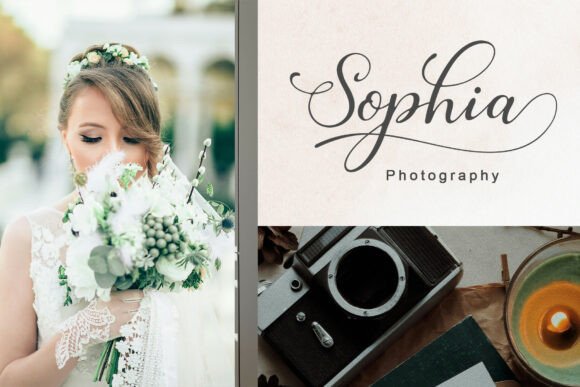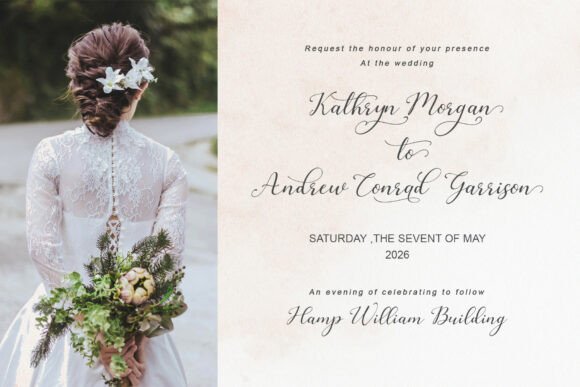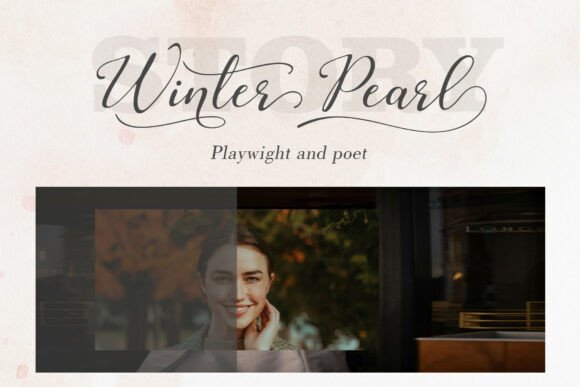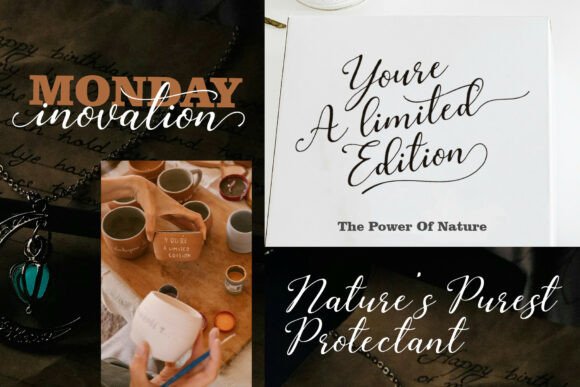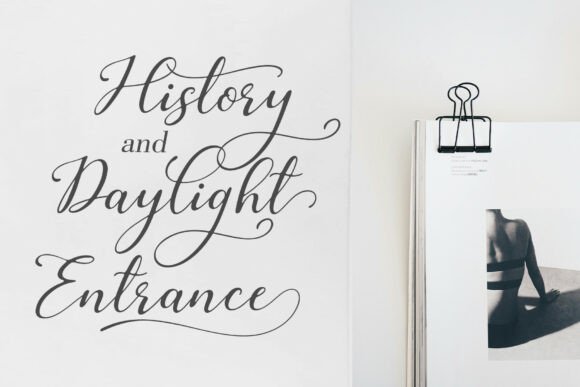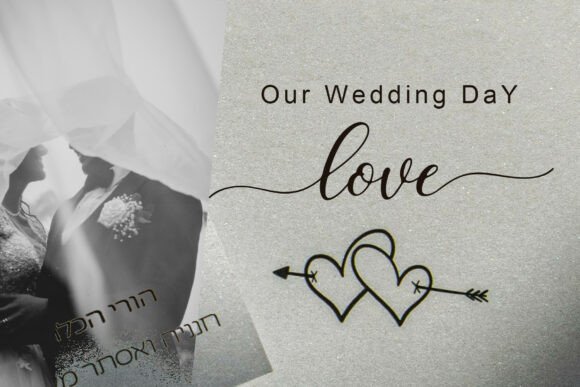
Discover the Elegance of Bodigat Font: Elevate Your Design Work
Have you ever been in the middle of a design project, pouring your heart and soul into it, only to hit a creative roadblock because you just can’t find the right font? I certainly have. It was during one of those moments, working on a wedding invitation design, that I stumbled upon Bodigat Font. It was as if the clouds parted, and the perfect solution shone through. In this article, I’ll share my journey with Bodigat, its features, and how you can make the most of it in your design work.
First Impressions: What Makes Bodigat Stand Out
Bodigat Font is a modern script font that brings an enchanting touch of elegance to any design project. Its sophisticated look, characterized by graceful curves and handcrafted details, makes it an excellent choice for creating breathtaking wedding invitations, distinguished branding, captivating logos, stylish packaging, and mesmerizing media content.
An Honest Review of Bodigat Font
What I Love About Bodigat ✨
- ✅ Elegant and sophisticated design
- ✅ Highly versatile for various design projects
- ✅ Easy to read, even in smaller sizes
- ✅ Extensive OpenType features for creative freedom
While Bodigat is an exceptional font, there are a few things to keep in mind:
- 🤔 It might not be the best fit for very casual or playful designs, as it leans more towards elegance and sophistication.
- ⚠️ Some of the more intricate details may not render well in very small sizes or on lower-resolution screens.
The Story Behind Bodigat: Designer Inspiration
Bodigat was crafted with the intention of bringing a modern, elegant script font to designers. Inspired by the beauty of handwritten calligraphy and the precision of digital design, Bodigat’s creator aimed to produce a font that could be both versatile and stunning. Whether it’s used for wedding invitations or luxury branding, Bodigat is designed to enthrall and elevate any project it graces.
Q: Is Bodigat suitable for body text?
A: While Bodigat is primarily designed for headlines and short text passages, its readability makes it possible to use for longer texts, especially in larger sizes.
Q: Does Bodigat support OpenType features?
A: Yes, Bodigat includes a range of OpenType features, such as ligatures, stylistic alternates, and glyphs, allowing for a high degree of customization.